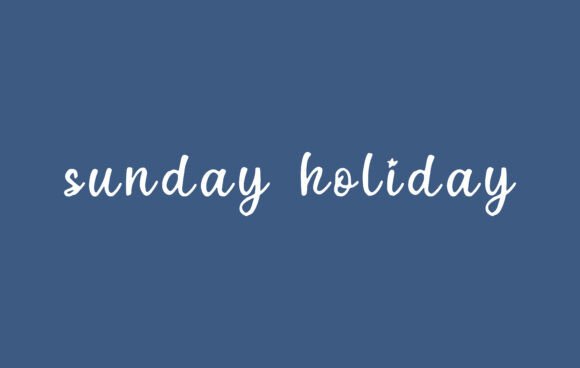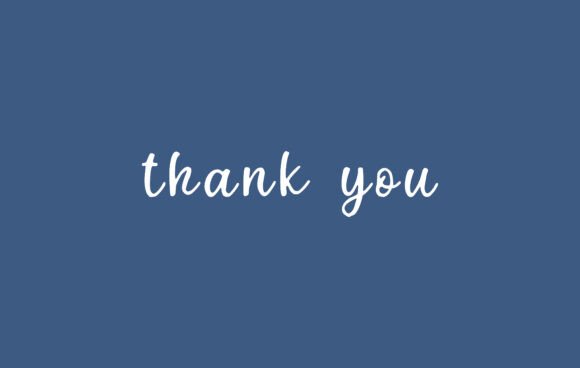
The Emma Font: A Romantic Handwritten Delight for Creatives
I’ll never forget the moment I stumbled upon the Emma font while working on a wedding invitation project. My client had a very specific vision – elegant, yet playful – and I was struggling to find the perfect font to bring it all together. That’s when I discovered Emma, an authentic handwritten font with a romantic touch that instantly captured my heart. In this article, I’ll share my experience with Emma, its features, and how to make the most of it in your designs.
An Honest Review of Emma Font
What I Love About Emma ✨
- ✅ Legibility: Emma is incredibly easy to read, making it perfect for both title and body text.
- ✅ Romantic Touch: The font’s handwritten style adds a touch of elegance and sophistication to any design.
- ✅ Versatility: Emma can be used for a wide range of projects, from magazine headlines to social media graphics, branding, wedding invitations, and more.
- ✅ Authentic Handwritten Feel: The font’s unique, human touch sets it apart from more generic fonts.
- ⚠️ Limited Use in Small Sizes: While Emma is generally legible, it may not be the best choice for very small font sizes or body text in certain contexts.
- ⚠️ Overuse Can Be Overwhelming: As with any decorative font, using Emma excessively can overwhelm the reader; balance is key.
- Experiment with OpenType features like ligatures and stylistic alternates to add more character to your text.
- Explore glyphs and stylistic alternates through the Glyphs panel in Illustrator or Character panel in Photoshop to customize your text.
The Story Behind Emma Font
While the actual origins of Emma font are not well-documented, it’s clear that its designer aimed to create a font that captures the essence of handwritten elegance. The result is a font that feels both personal and sophisticated, perfect for projects that require a touch of romance.
Q: Is Emma Font Suitable for Body Text?
A: Yes, Emma is legible and can be used for body text, though it shines brightest in titles and headings.
Q: Does Emma Support OpenType Features?
A: Yes, Emma supports OpenType features, including ligatures and stylistic alternates, which can enhance your designs.